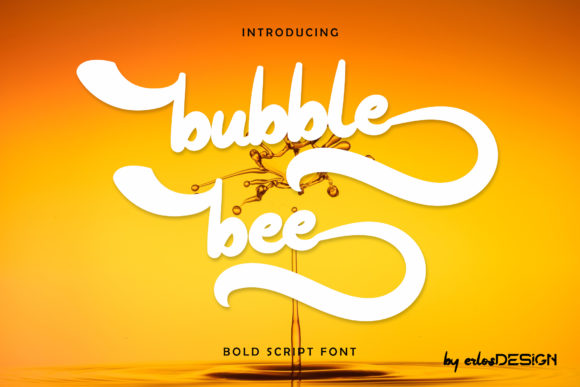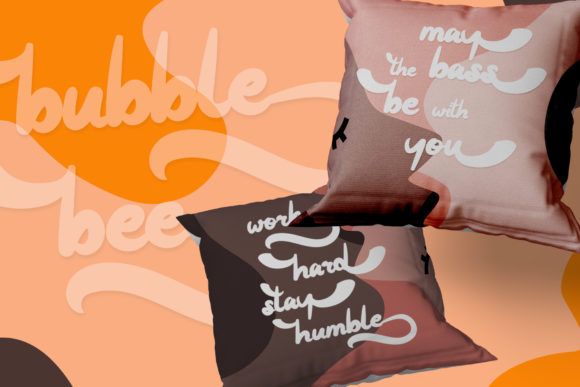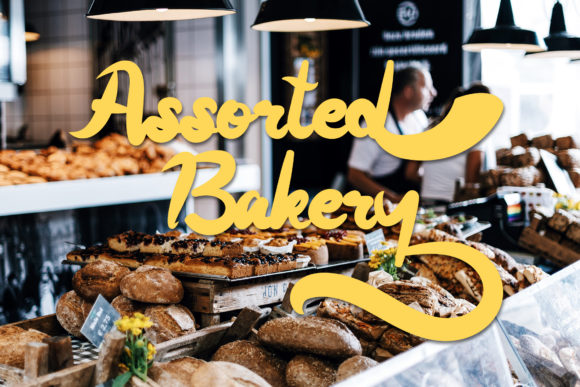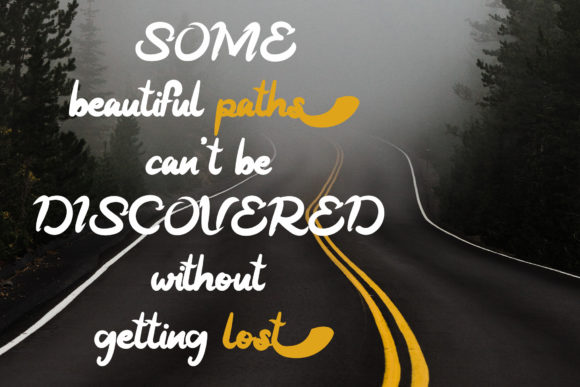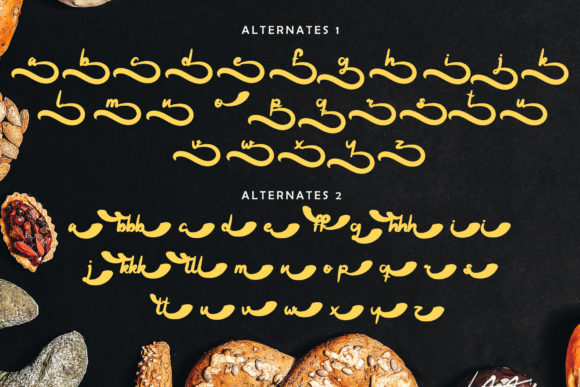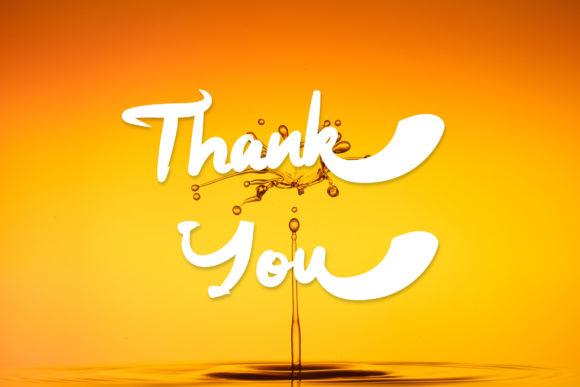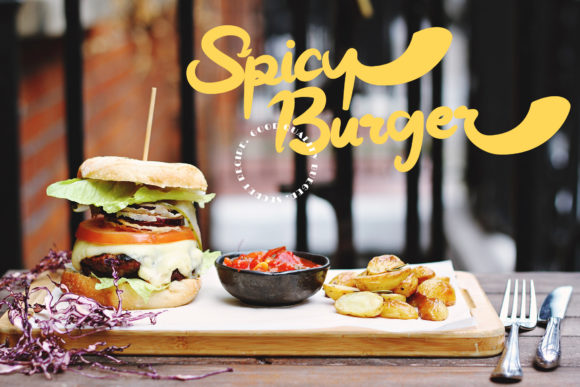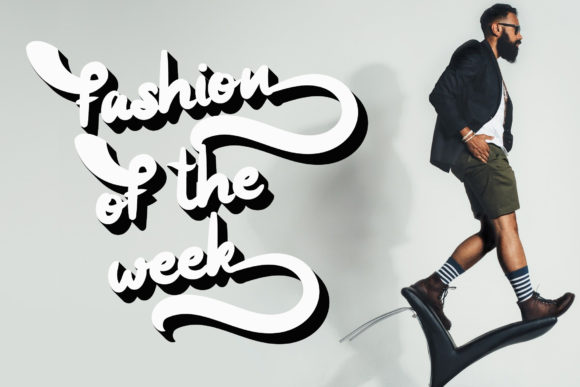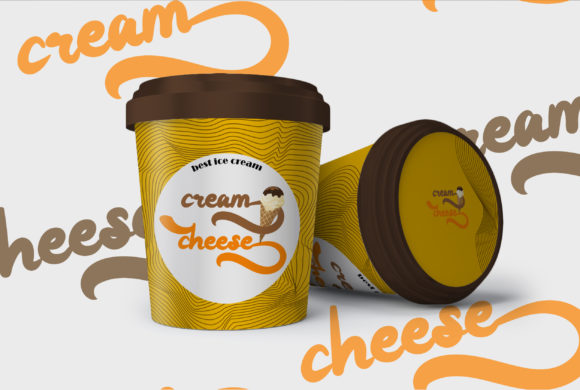
Bubble Bee Font
About Bubble Bee Font
Bubble Bee is a flowing, bold and beautiful handwritten font. It is PUA encoded which means you can access all of the glyphs and swashes with ease! It features a varying baseline, smooth lines, gorgeous glyphs and stunning alternates. Fall in love with its incredibly versatile style and use it to create gorgeous designs!